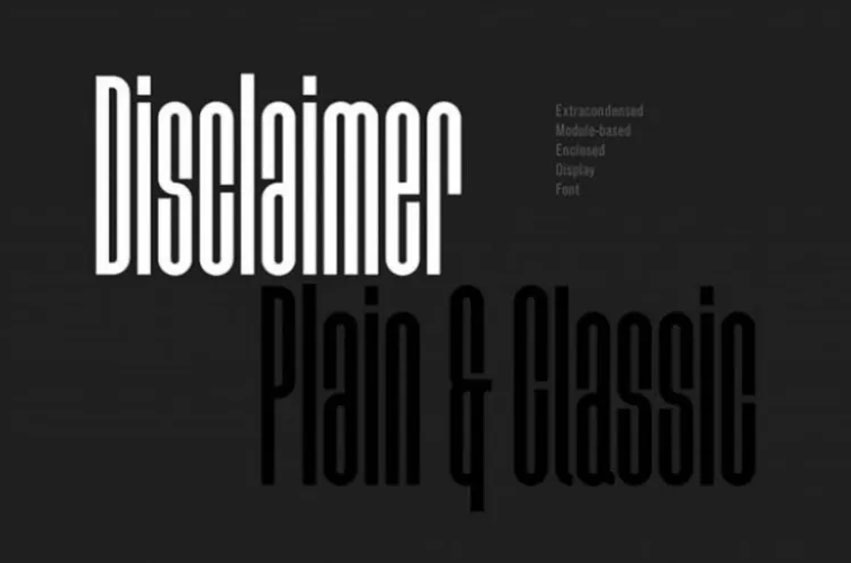
Disclaimer Font
Disclaimer Font is the FONT MARKS’ first release that comes in two styles, Plain, and Classic, and is a display font based on modules.